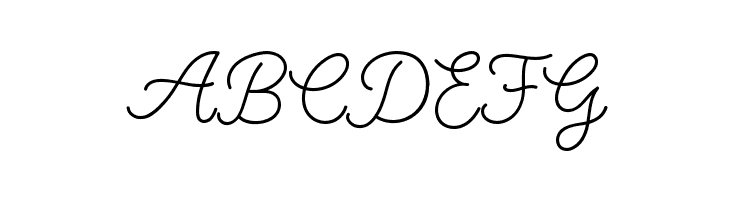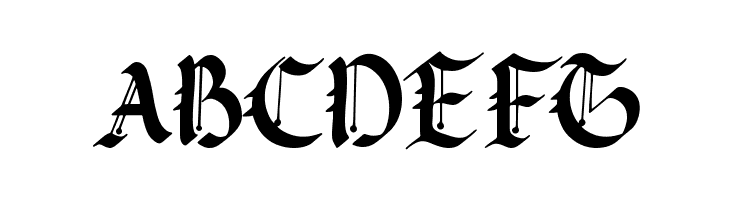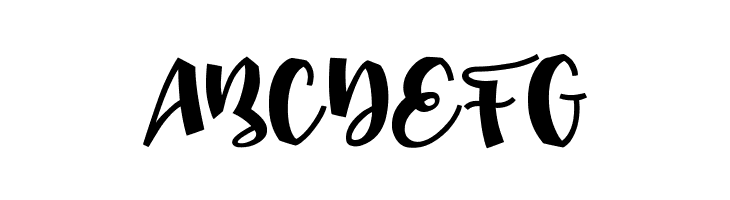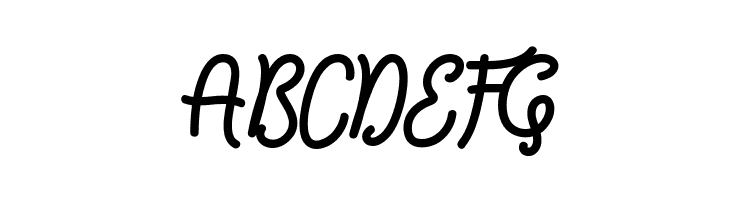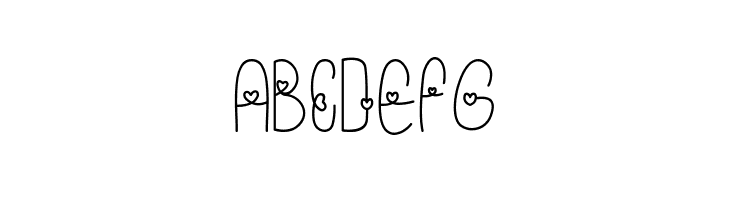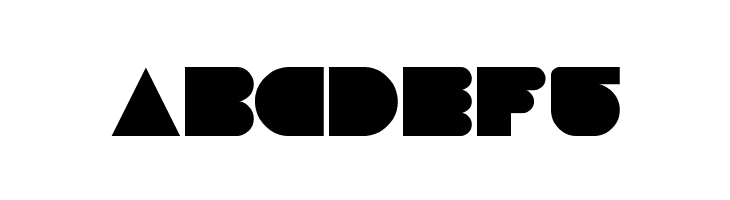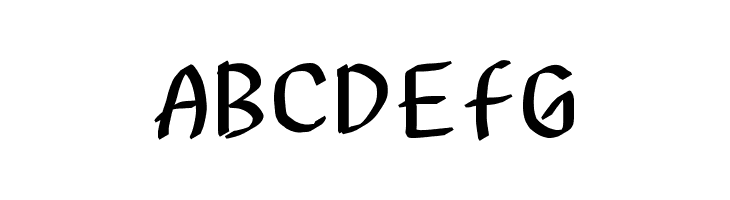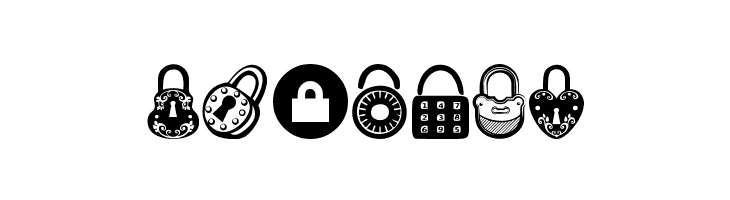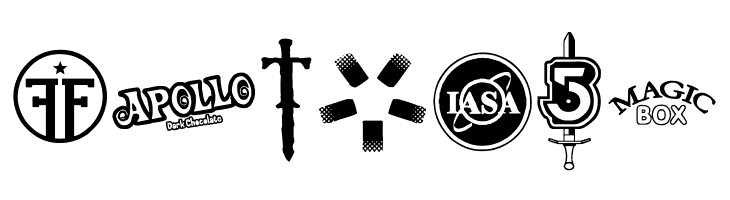
A dingbat font of assorted lock and padlock icons in various styles.
A bold and intricate Blackletter font with a historical and gothic aesthetic.
A diverse set of bold, geometric, and illustrative logo glyphs.
A playful and energetic handwritten script font with bold, smooth strokes.
A graceful script font with flowing, connected strokes and elegant curves.
A whimsical font with heart motifs integrated into each character, offering a romantic and playful style.
A bold, geometric font with strong circular and triangular elements.
A bold, expressive handwritten font with a brush-like style.
A bold, geometric font with sharp angles and a modern, edgy style.